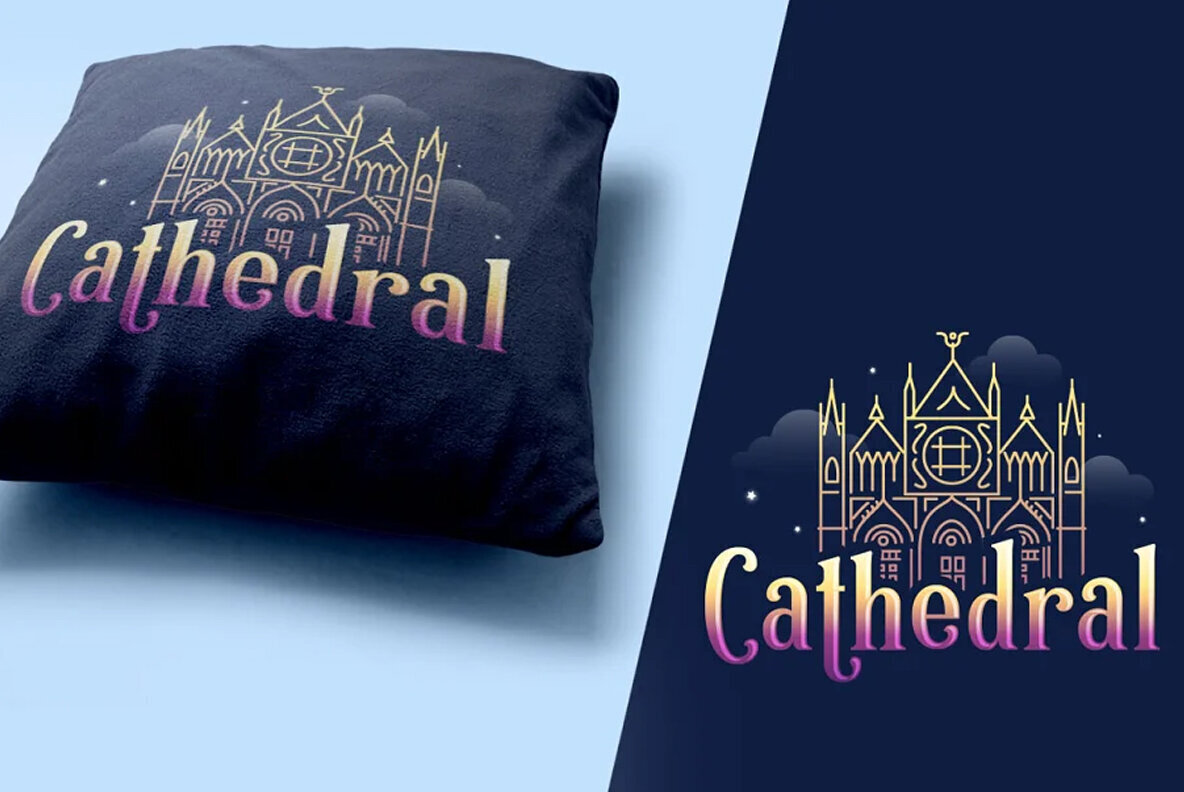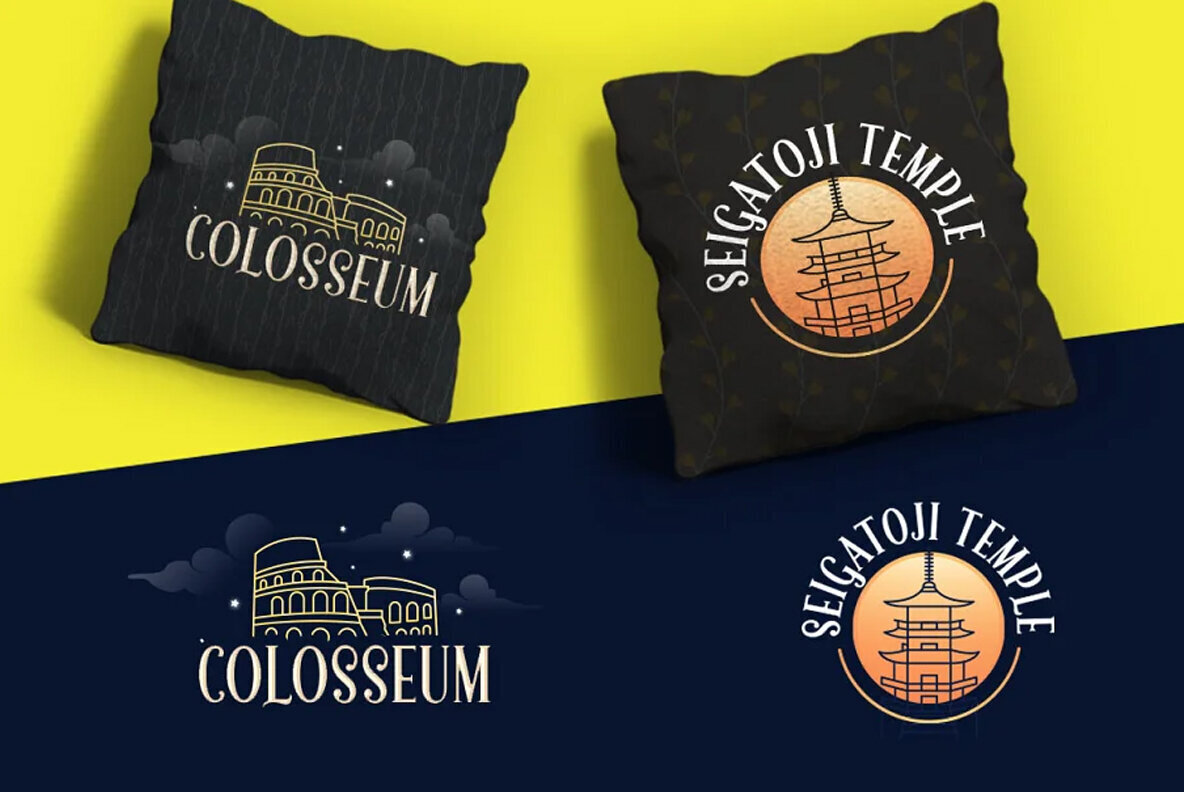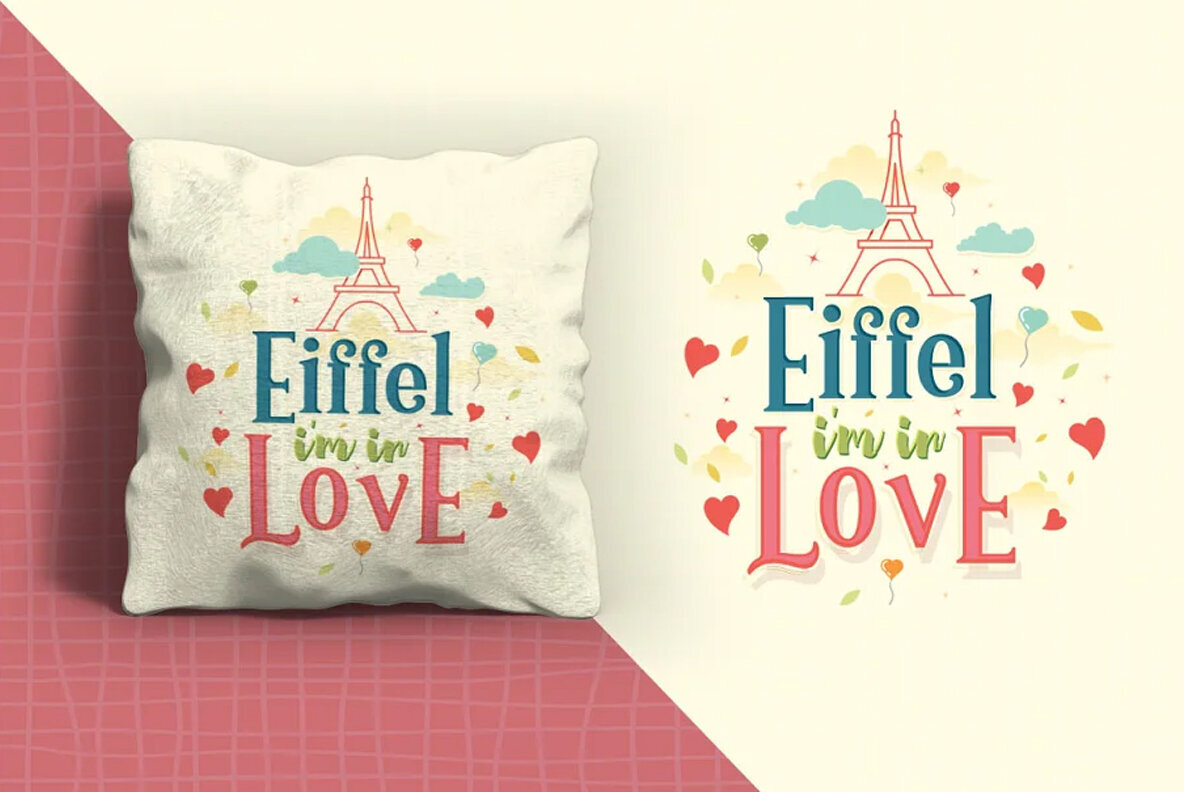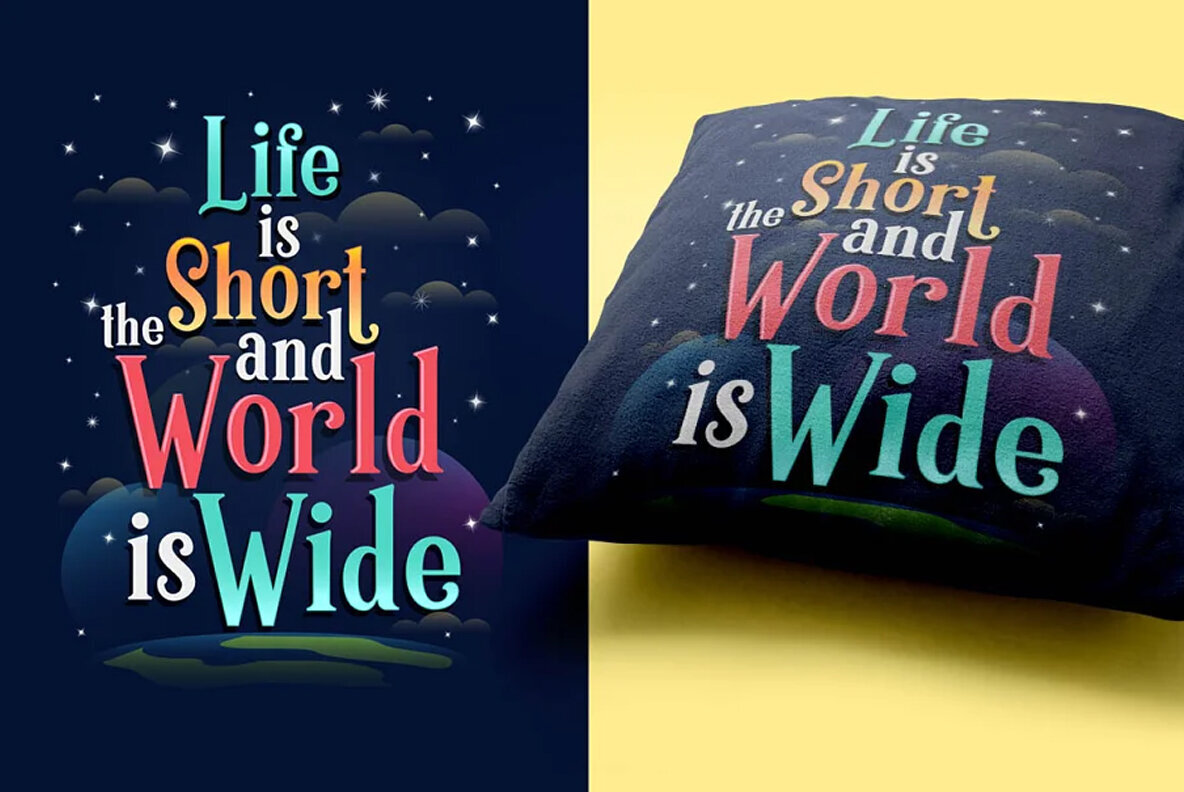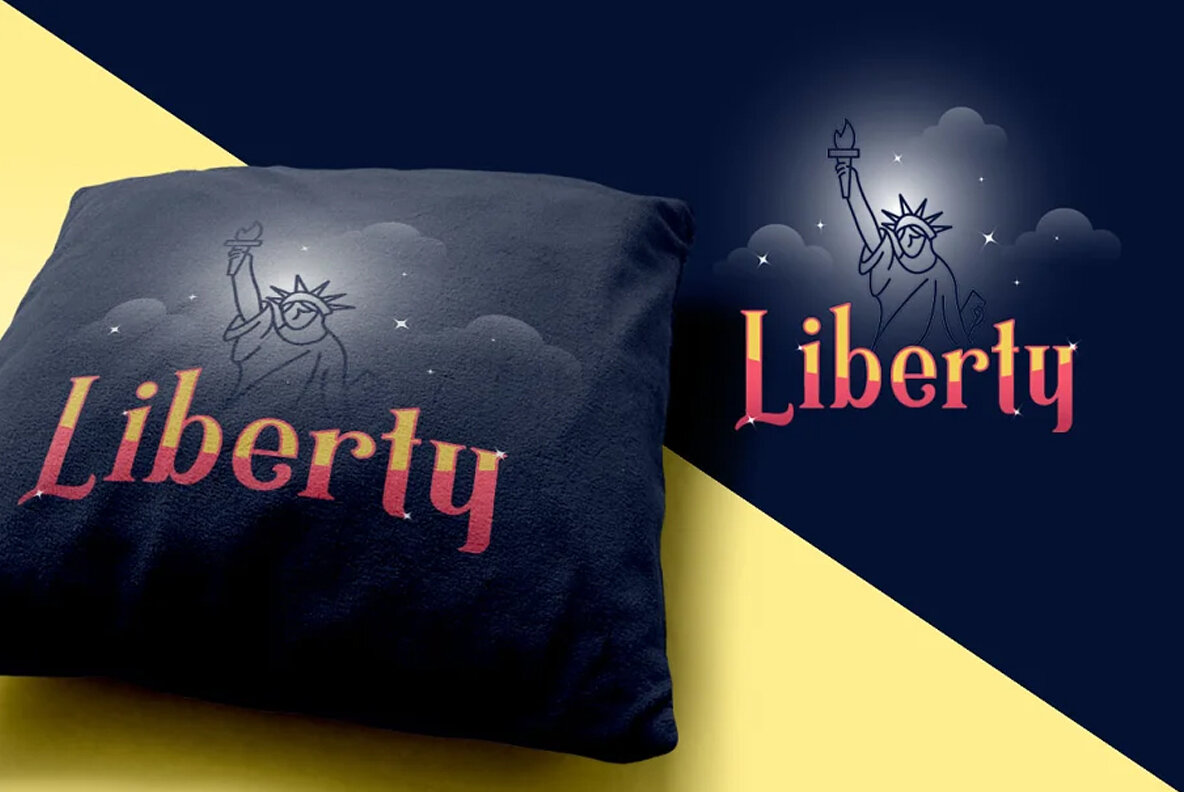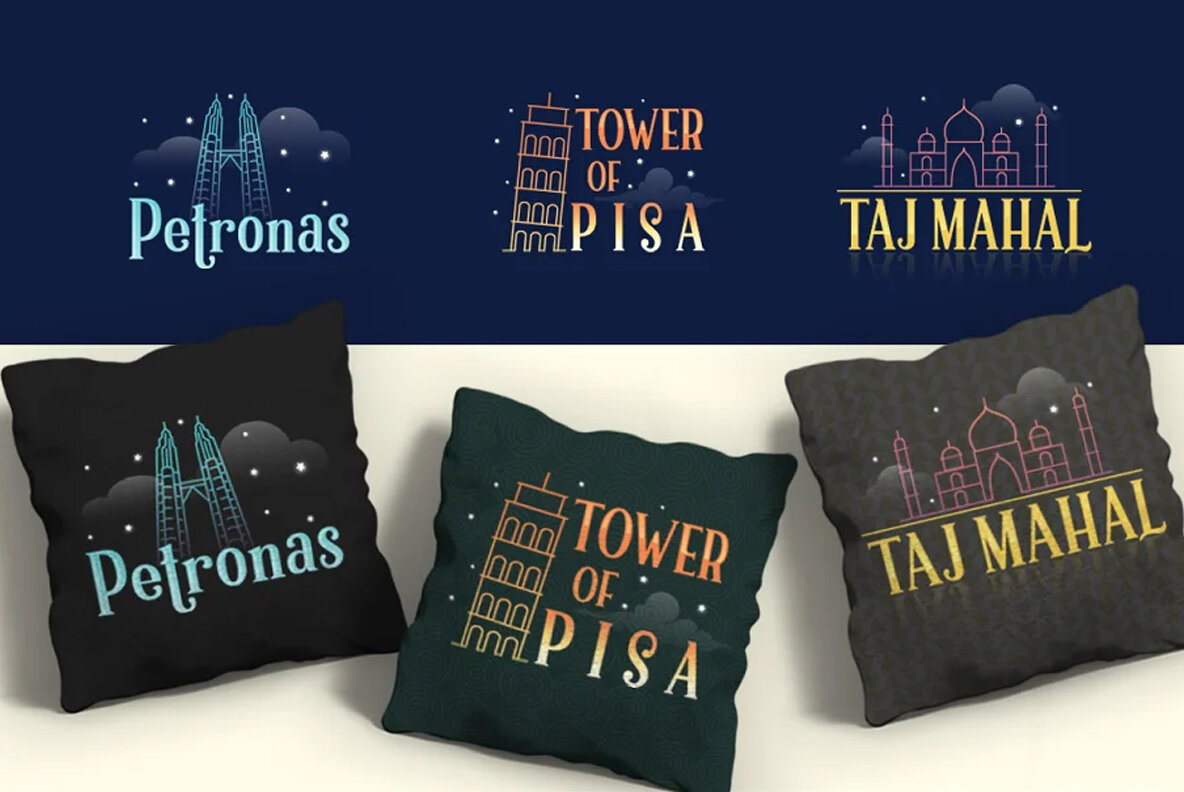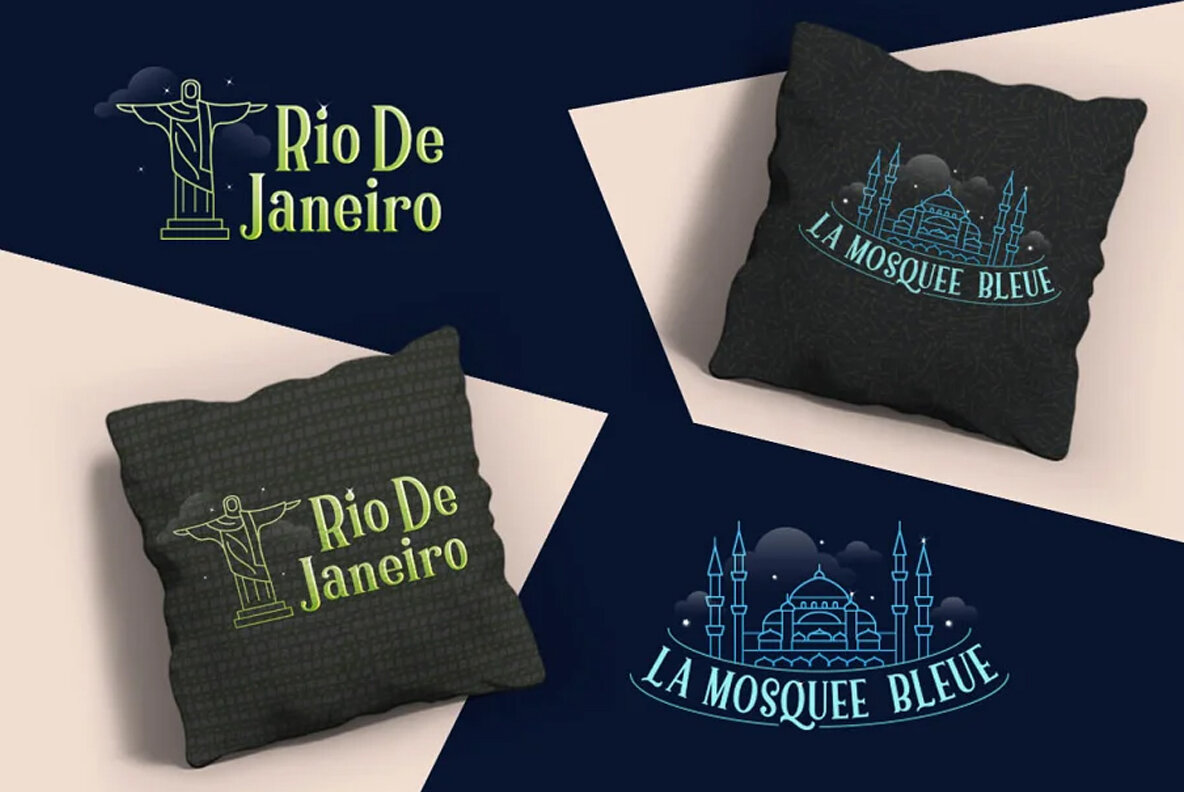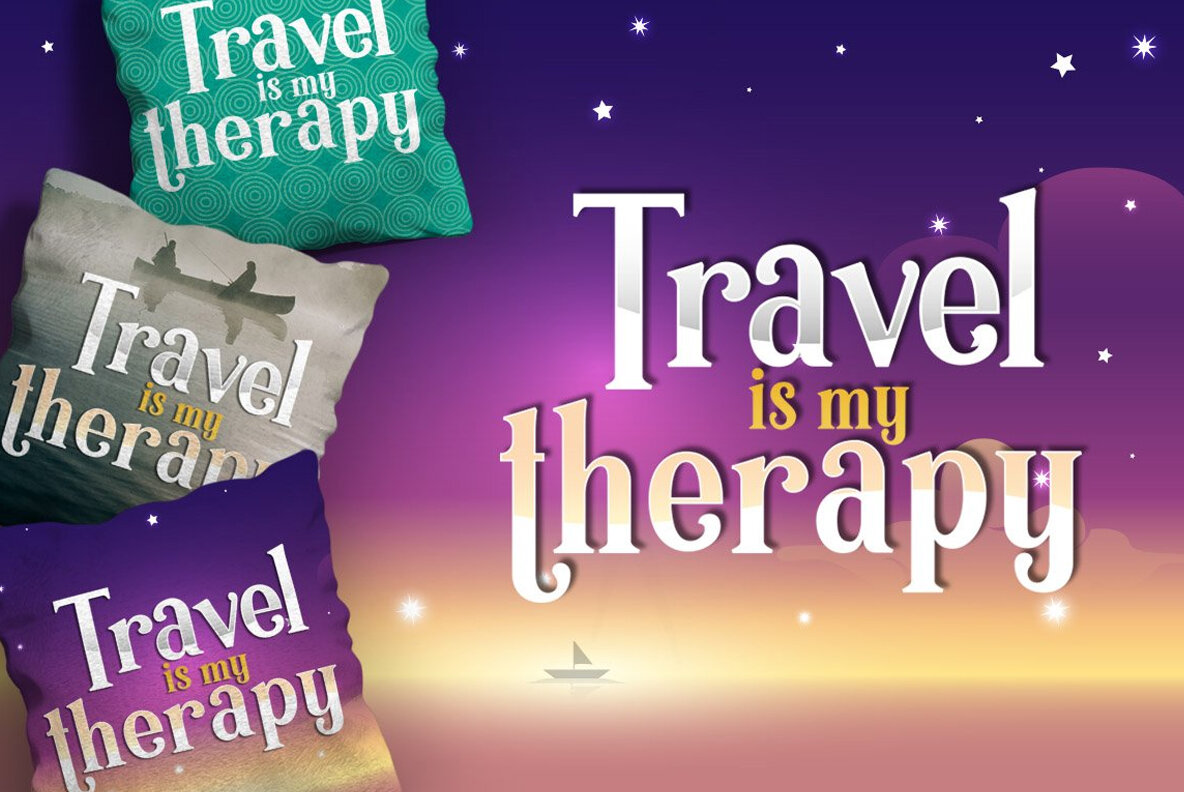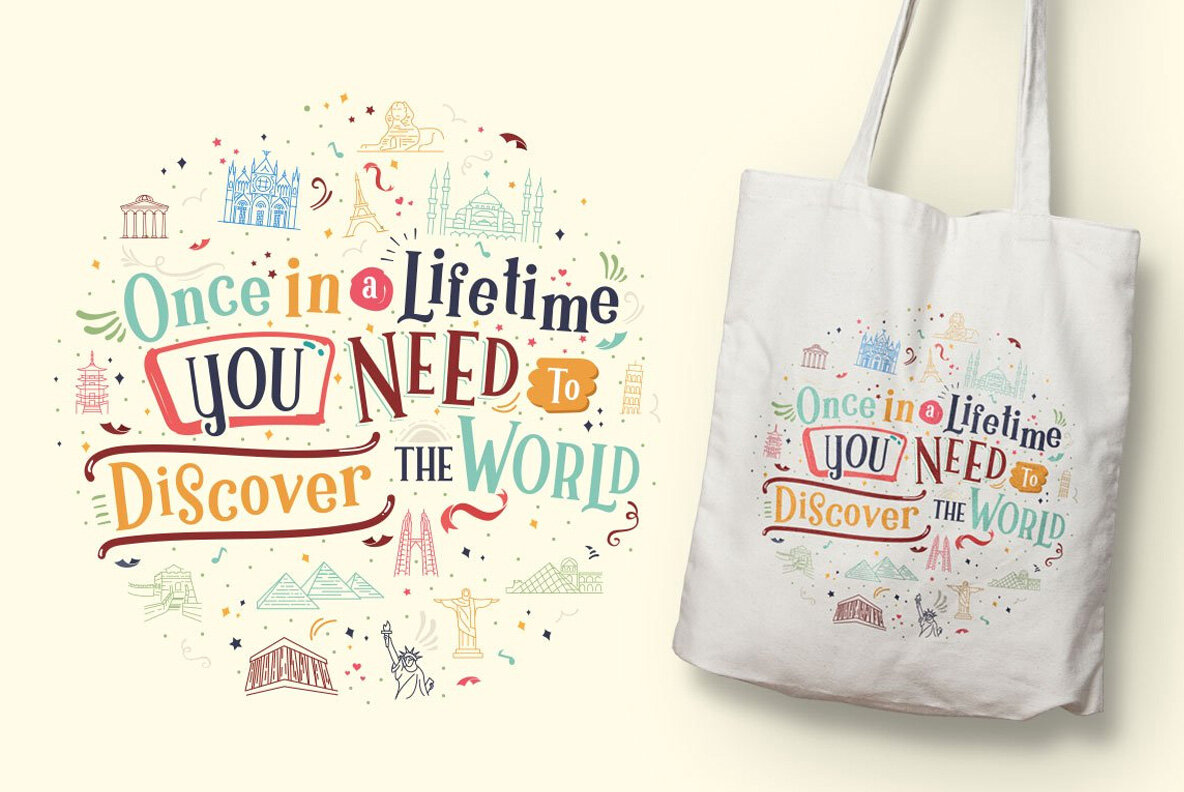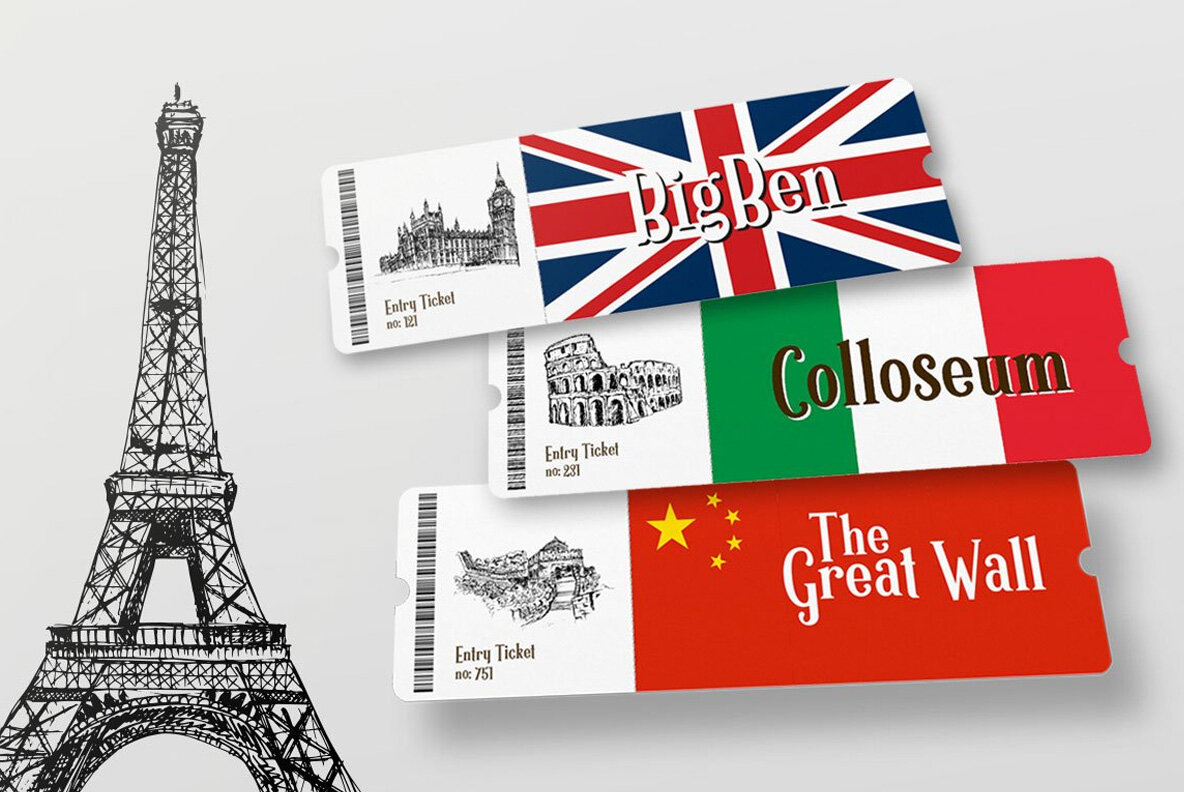
Glandish Font
Glandish Font and Bonus Vector Set (1 font)
Glandish by Flavortype offers an innovative twist on traditional serif fonts, introducing a refreshing theme that captures the essence of travel. Thoughtfully designed with an adjusted lowercase height, this font provides an enjoyable reading experience, inviting you to savor every moment as you embark on your creative journey. The uppercase of Glandish maintains a consistent height, making it ideal for headlines or emphasized text. When paired with lowercase letters, it retains clarity and cohesion, ensuring your designs remain visually appealing and organized.Glandish: A Travel-Inspired Serif Font